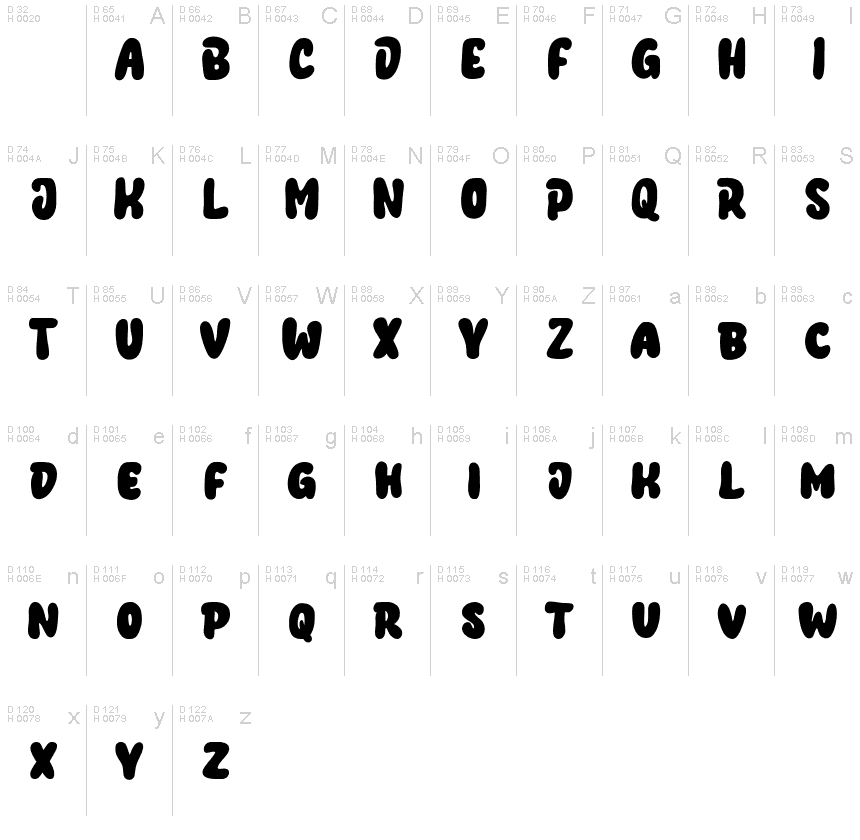
Calmoon Free Regular
Calmoon, the creation of font designer Maulana Creative, is an extraordinary display font with a bouncy cartoon style. Its extra-bold weight adds depth and impact to any project. Perfect for children's book covers, animated movie posters, or even playful logo designs for entertainment brands. Calmoon's whimsical curves and lively letterforms will bring your designs to life, capturing the attention of both young and young-at-heart audiences. Embrace the versatility of this font and elevate your projects with its captivating charm.